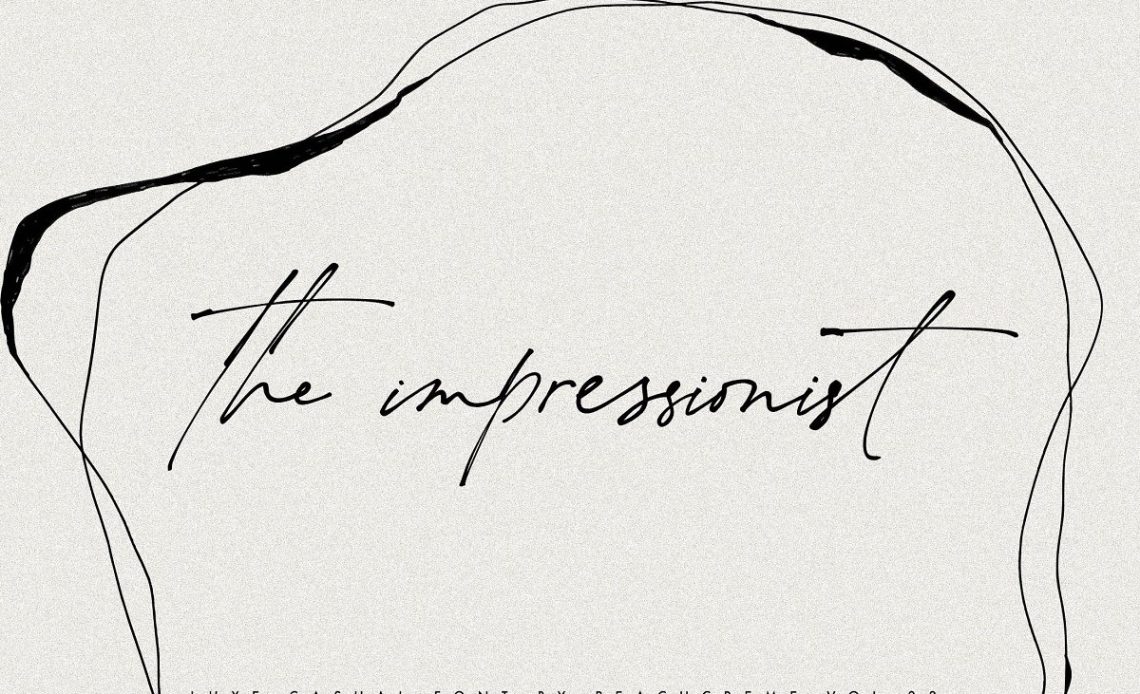
Welcome to the world of luxury fine art typography! We present to you the impressionist, a script font that is the epitome of luxe chic. Created by PeachCreme, this font is perfect for those looking to elevate their designs with a touch of sophistication and elegance.
The impressionist font is not your ordinary script font. It embodies the fleeting nature of vision and the beauty in the moments we experience. Each letter is uniquely crafted to evoke emotions, making it perfect for designs that require a touch of personalization and uniqueness.
With a full set of uppercase and lowercase letters, multilingual symbols, numerals, punctuation, and 134 ligatures, the impressionist offers endless design possibilities. Whether you're creating wedding invitations, branding materials, or social media graphics, this font has got you covered.
But what sets the impressionist apart from other script fonts is its smooth wet ink texture. It adds a touch of realism to your designs, making them stand out from the crowd.